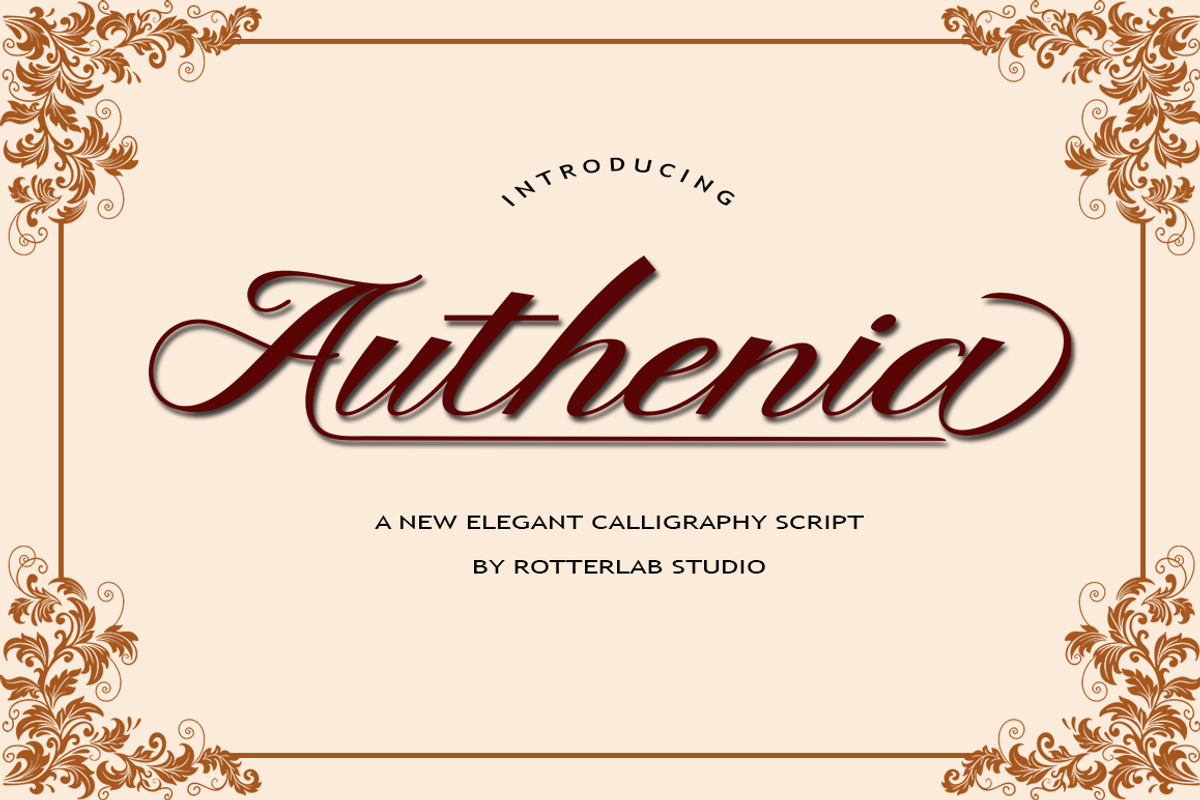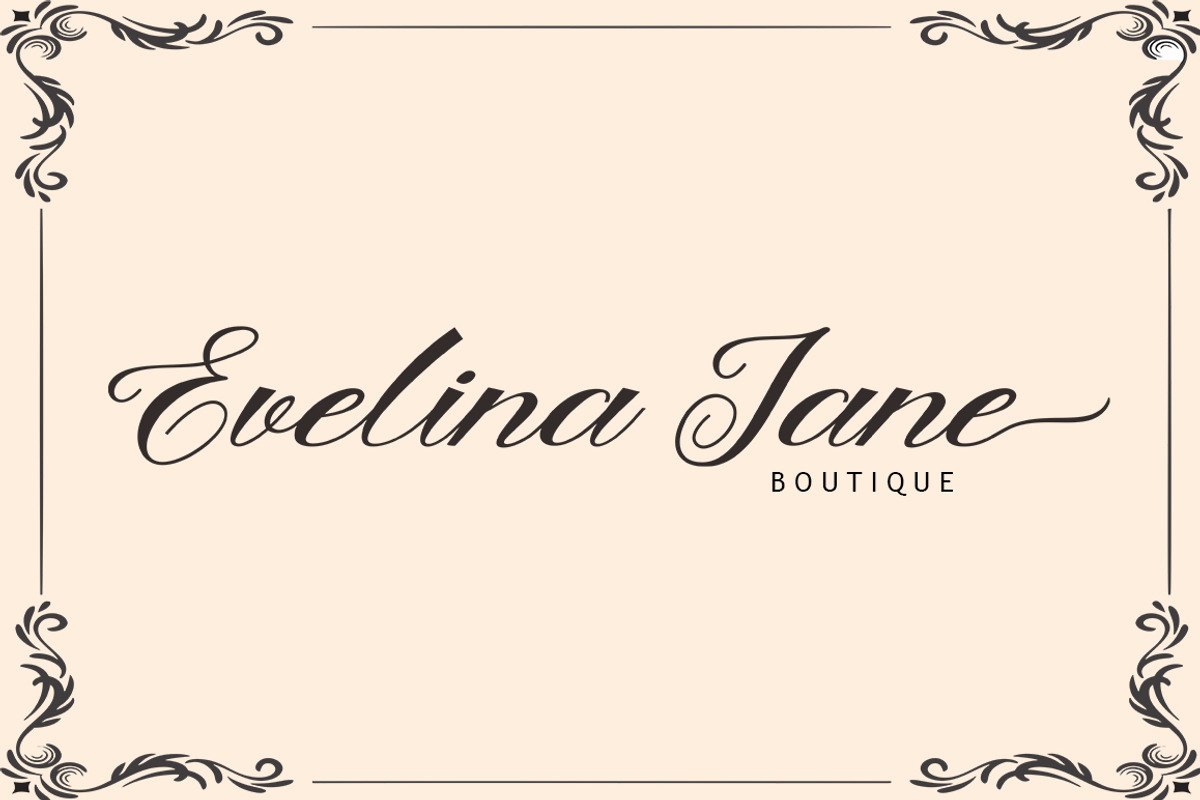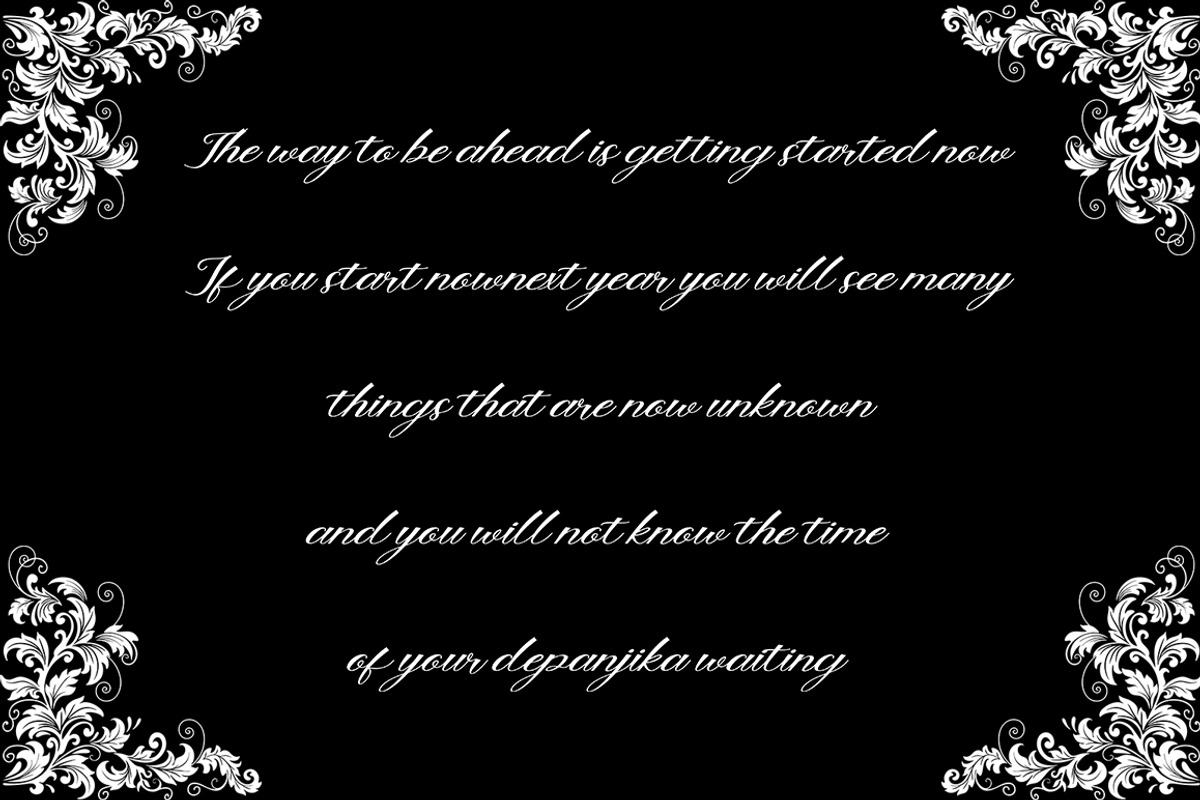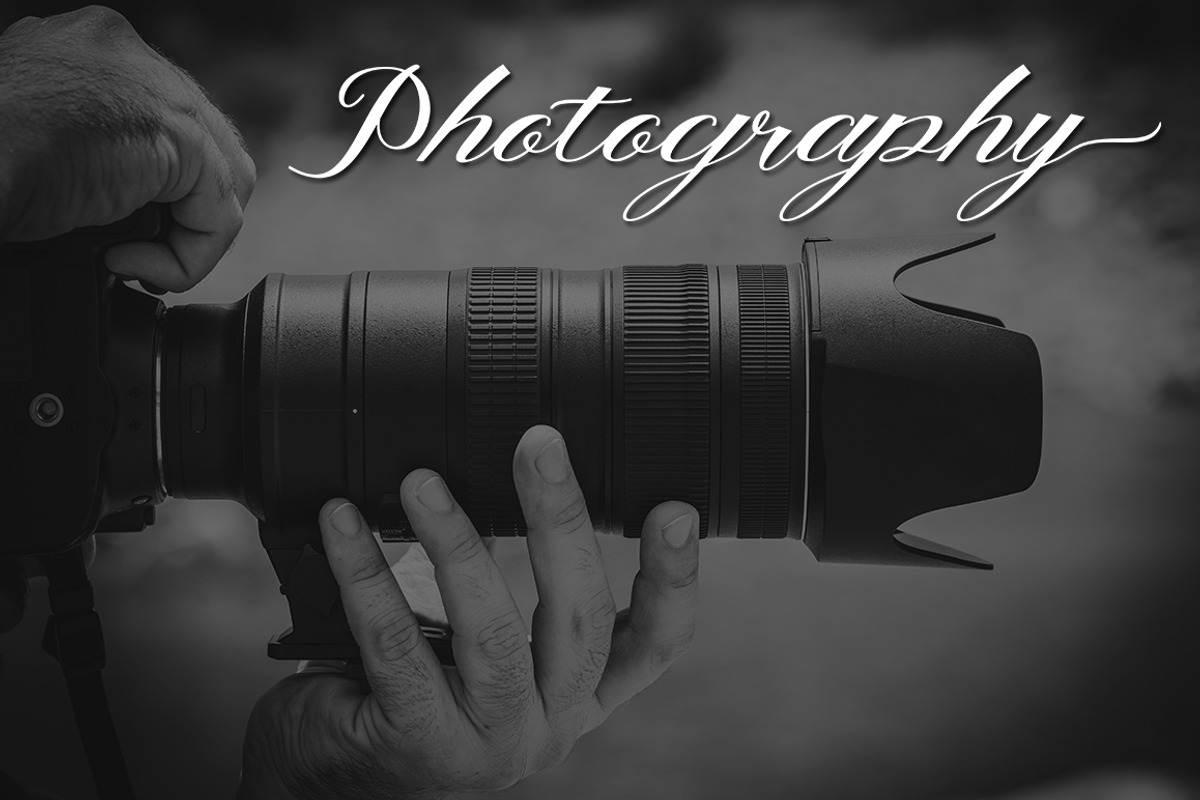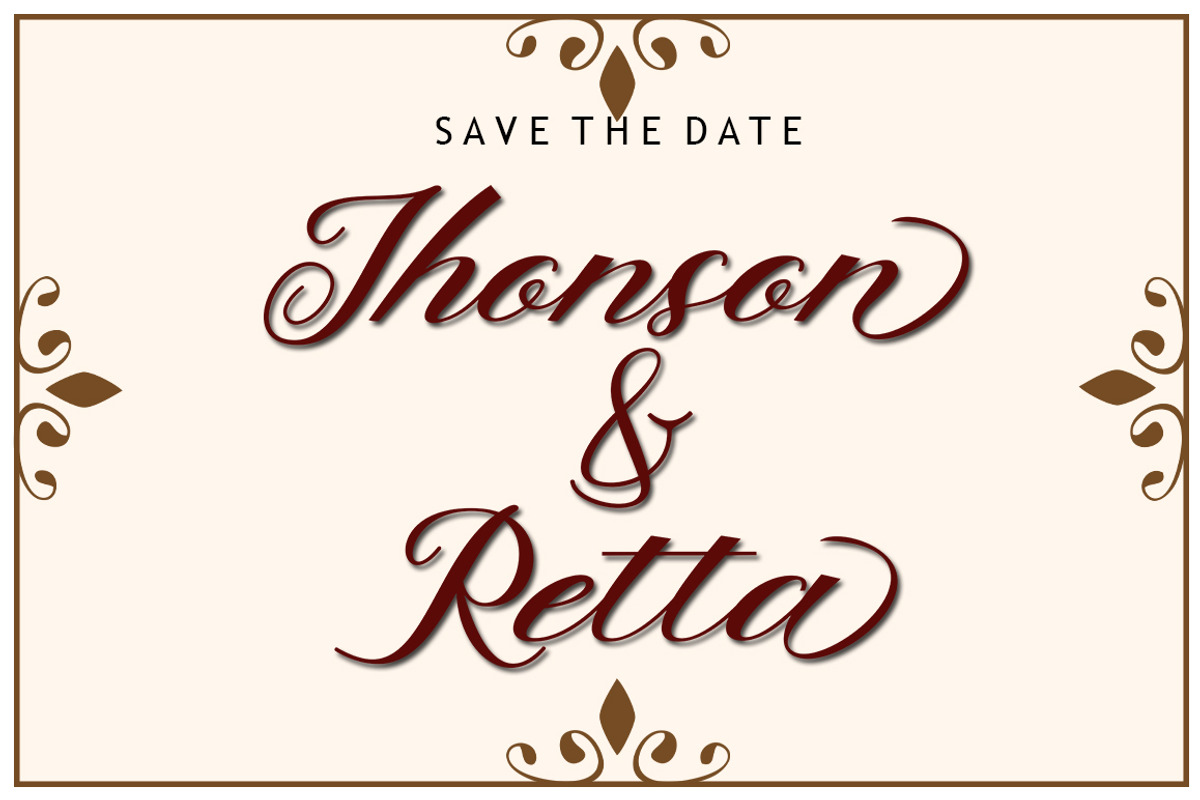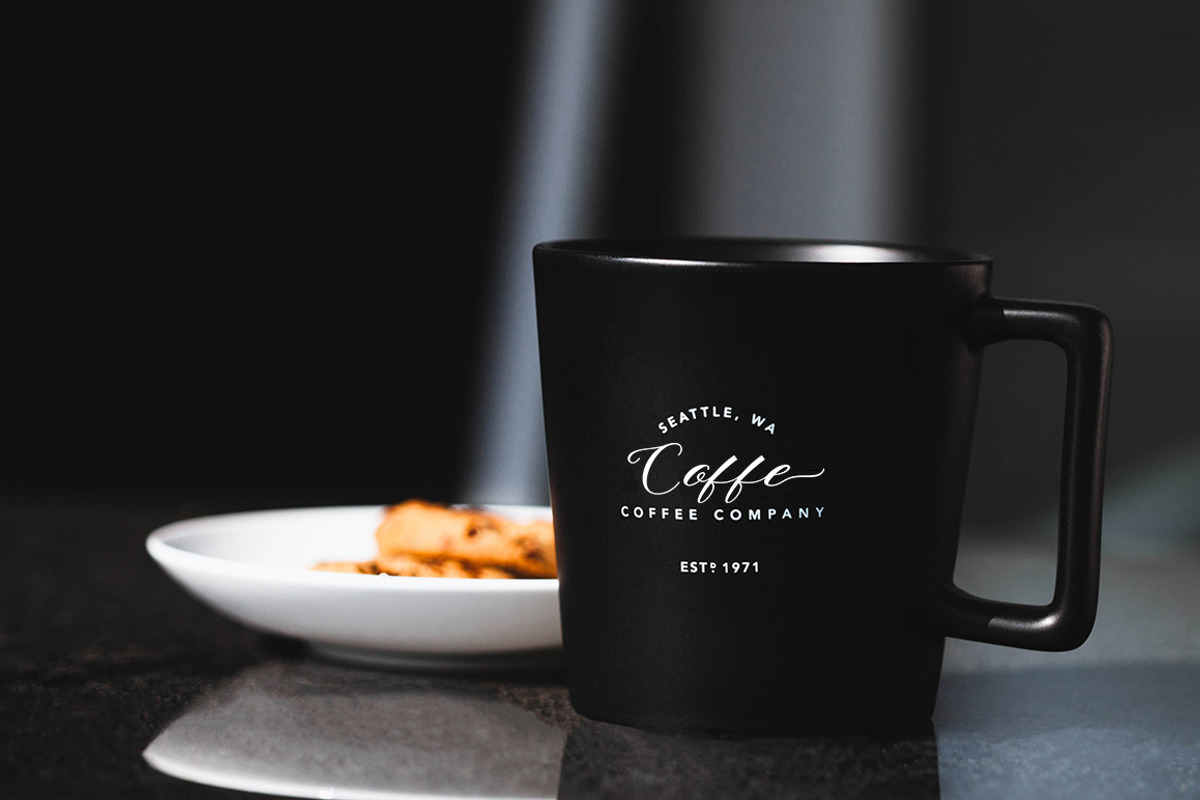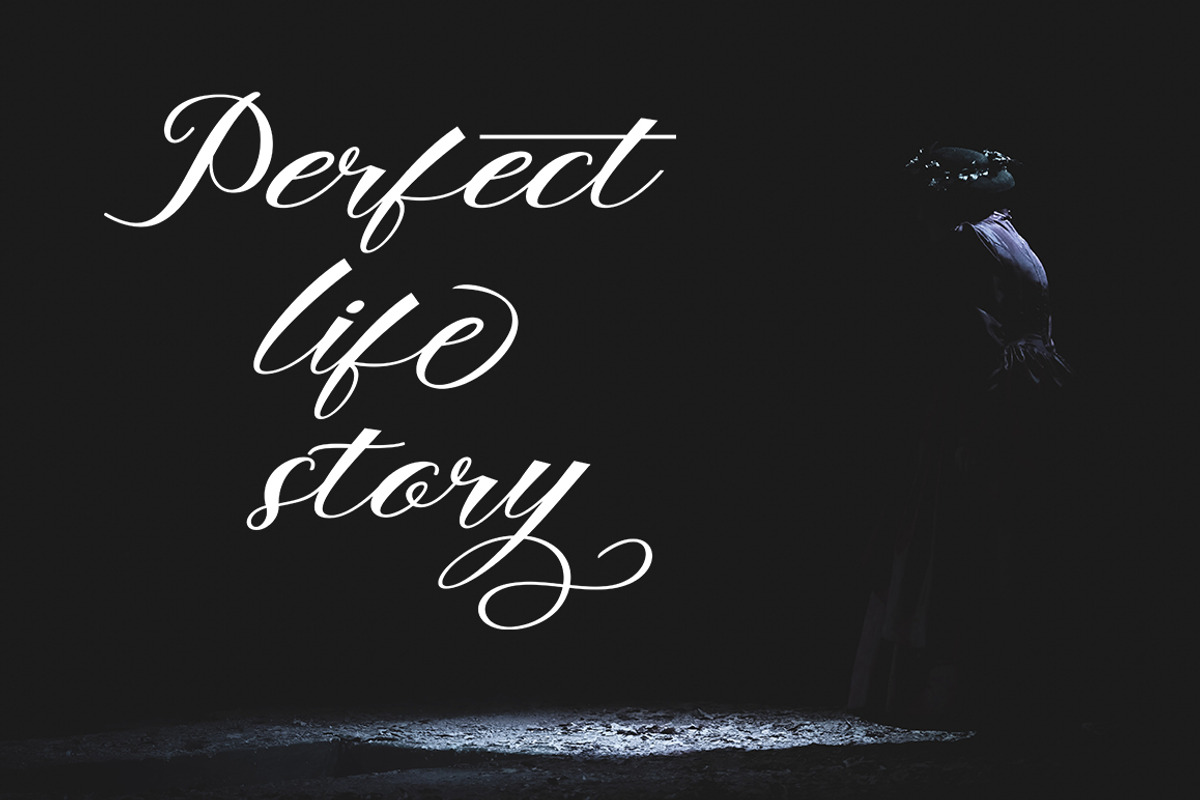
Authenia
Introducing
a new quality calligraphy font is Authenia Script. Inspired by a mixture of copper calligraphy with handlettering style. OpenType feature with Stylistic Alternatives, Swash, Ligatures, Stylistic sets. It allows you to mix and match letter pairs to fit your design, and also comes with modern ornaments to make this font look elegant and perfect. Authenia is attractive like a smooth, clean, feminine, sensual, glamorous, simple and very easy to read. The classic style is perfect to be applied in various formal forms such as invitations, labels, menus, logos, fashion, make up, stationery, letterpress, romantic novels, books, greeting / wedding cards, packaging, labels, and more.